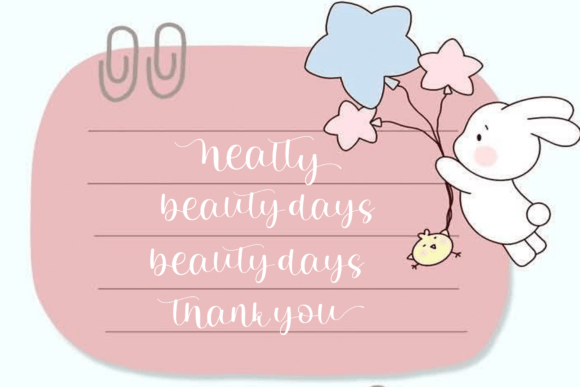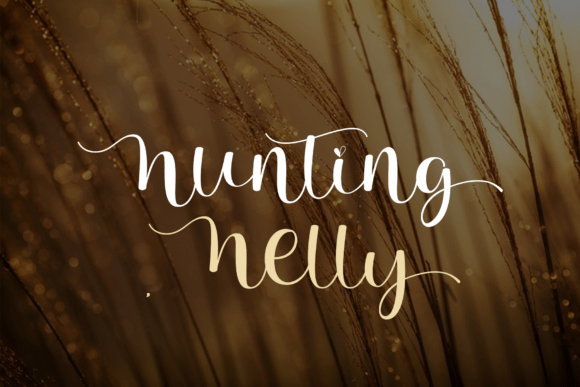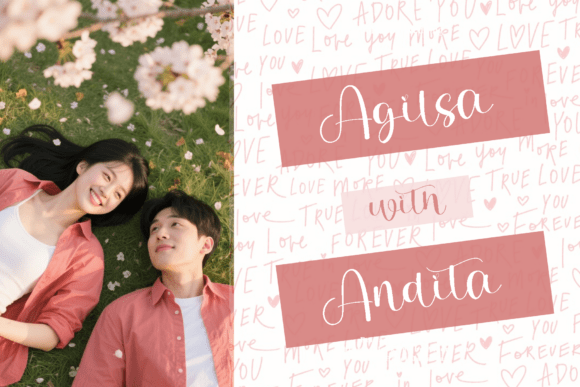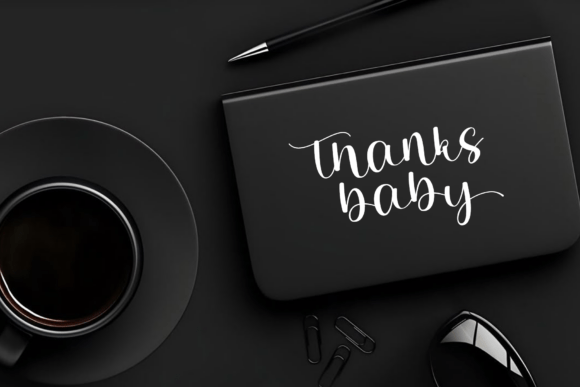
Introducing Healty Font: The Timeless Handwritten Font for Stunning Designs
Are you a designer or crafter looking for a font that can elevate your designs and make them stand out? Look no further than Healty Font, a lovely and timeless handwritten font that is perfect for creating eye-catching logos, branding, and quotes. With its unique and beautiful touch, Healty Font is sure to bring your designs to life!
The Characteristics of Healty Font
Healty Font is a handwritten font that boasts a range of characteristics that make it perfect for designers and crafters. Here are just a few of the features that set Healty Font apart:
- Unique and Beautiful Touch: Every letter in Healty Font has a unique and beautiful touch that will make your designs stand out. The font’s handwritten nature gives it a personal and organic feel that is hard to replicate with other fonts.
- Timeless Design: Healty Font has a timeless design that will never go out of style. Its classic look and feel make it perfect for creating designs that need to stand the test of time.
- Elegant and Sophisticated: Healty Font is an elegant and sophisticated font that is perfect for creating high-end designs. Its refined look and feel make it ideal for luxury brands and designers who want to create premium products.
Uses for Healty Font
Healty Font is a versatile font that can be used for a wide range of design projects. Here are just a few ideas for how you can use Healty Font:
- Logos and Branding: Healty Font is perfect for creating eye-catching logos and branding materials. Its unique and beautiful touch makes it ideal for creating memorable and impactful logos.
- Quotes and Posters: Healty Font is also great for creating quotes and posters. Its elegant and sophisticated design makes it perfect for creating inspiring and thought-provoking quotes.
- Packaging and Product Design: Healty Font can also be used for packaging and product design. Its refined look and feel make it ideal for creating premium packaging and product designs.
Why Choose Healty Font?
So why choose Healty Font over other fonts? Here are just a few reasons why Healty Font is the perfect choice for designers and crafters:
- High-Quality Design: Healty Font is a high-quality font that is designed to deliver exceptional results. Its unique and beautiful touch makes it perfect for creating stunning designs.
- Easy to Read: Healty Font is easy to read, even at small sizes. This makes it perfect for creating designs that need to be legible and easy to understand.
- Versatile: Healty Font is a versatile font that can be used for a wide range of design projects. Its elegant and sophisticated design makes it perfect for creating high-end designs.
Tips for Using Healty Font
Here are just a few tips for using Healty Font:
- Use it for Headlines and Titles: Healty Font is perfect for use in headlines and titles. Its unique and beautiful touch makes it ideal for creating eye-catching headings.
- Experiment with Colors and Textures: Healty Font looks great in a range of colors and textures. Experiment with different colors and textures to find the perfect look for your design.
- Pair it with Other Fonts: Healty Font can be paired with other fonts to create stunning designs. Try pairing it with a sans-serif font for a bold and modern look.
In conclusion, Healty Font is a timeless handwritten font that is perfect for designers and crafters who want to create stunning designs. Its unique and beautiful touch, elegant and sophisticated design, and versatility make it the perfect choice for a wide range of design projects. Whether you’re creating logos and branding, quotes and posters, or packaging and product designs, Healty Font is the perfect font for the job.